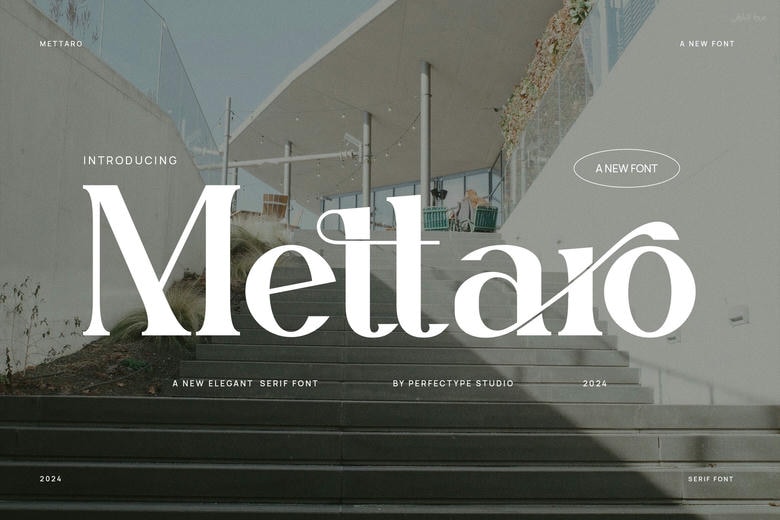
Mettaro Font
Mettaro is a stylish serif typeface with elegant ligatures. Its classic design brings a sense of sophistication to any project. Whether you’re working on logos, invitations, or other designs, Mettaro adds a refined touch to your typography.
Mettaro Serif Font